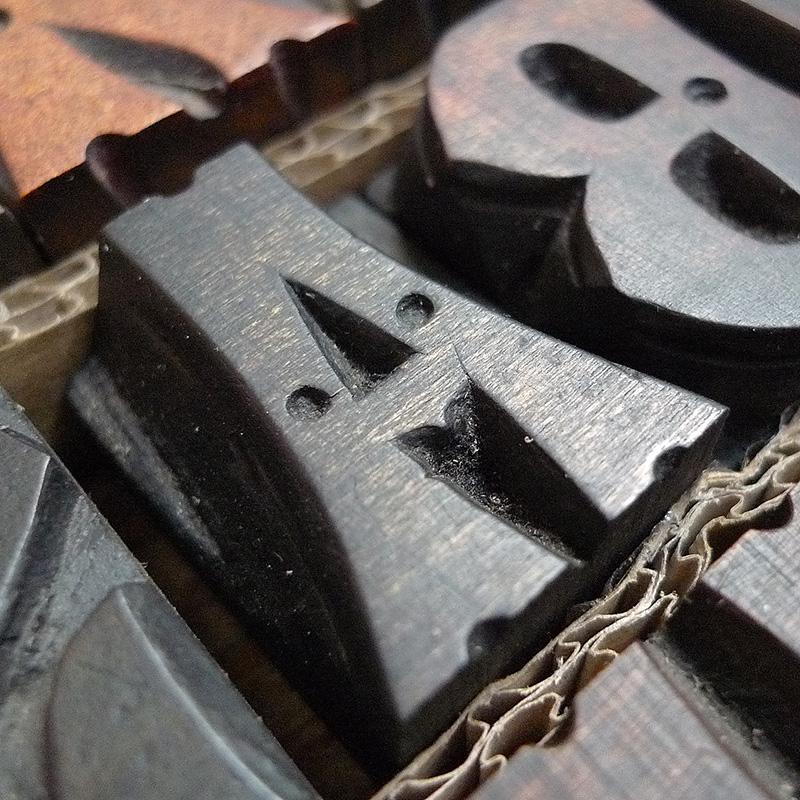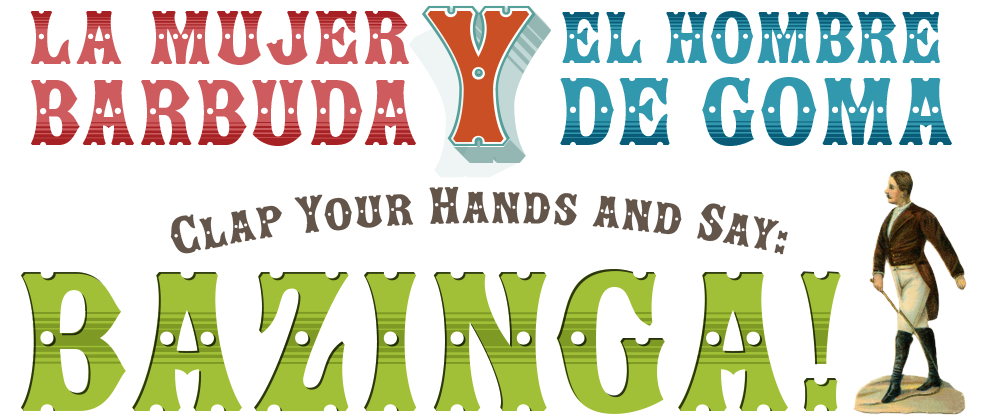
Ladies and gentelmen, welcome to Show!
A multi-layered chromatic circus font family based on an old Victorian style wood type
Inés Atienza and me are members of the Familia Plómez association, a small printshop based in Madrid that devote their efforts to promote everything about letterpress printing, calligraphy, and lettering. One of our favorite typefaces from our collection of wood types has been the basis for creating a new digital typeface.
After much searching in old specimen books, we came to find out that it’s part of a type family called Concave, a Victorian type launched in 1884 by the foundry Marder, Luse & Co. After using it on several letterpress projects, we thought we would have a go at digitizing the original type, as well as giving it a multilayered chromatic accompaniment.
Show has an extended character set to support Central & Eastern European as well as Western European languages. It includes monetary symbols and complete punctuation.
As the original font lacked a lowercase, we have replaced them with small caps, which can be used either in conjunction with the caps or independently.